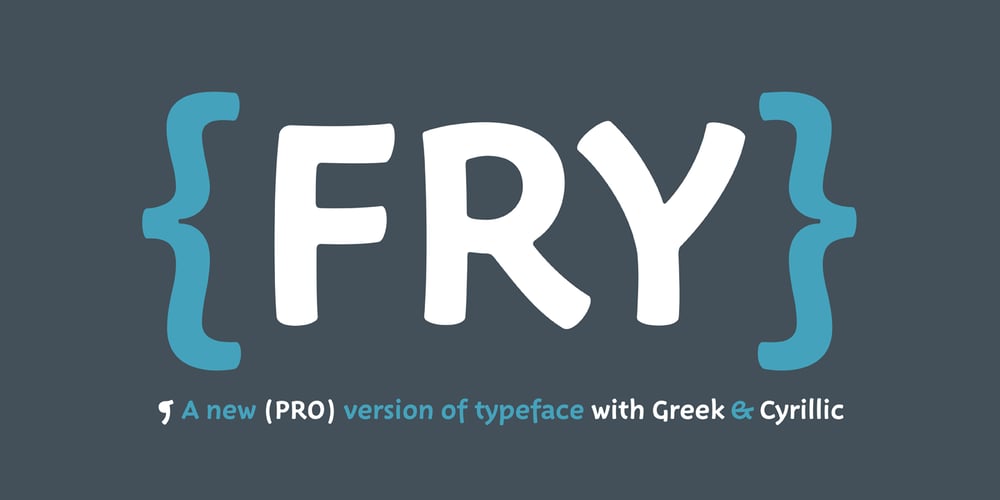
Fry Pro Font Family was designed by Oleg Macujev and published by omtype. Fry Pro contains 1 styles and family package options. The typeface Fry was developed in 2008 specially for the Sky-Fish company (fish and seafood dealer). This type is designed for small texts and has a friendly and a fairytale historic flavor. Fry takes the openness and dynamism of humanistic sans serif, the simple and softness of lubok’s letters (primitive style) and the fluidity of shallow marine fry. Despite its funny style, Fry works well even in the 5 point size. In large sizes Fry demonstrates its originality, vivacity and softness, in the small characteristics become less visible, and Fry’s readability becomes more important. This makes the typeface suitable for many tasks of typography. The typeface includes extended set of Latin, Cyrillic and Greek, old style and lining figures, historical alternates and special local features. The combination of lubok’s aesthetics and funny dynamic forms make a nature of Fry. Fry was exhibited on Svjato Cyrillic (Kharkov, Ukraine) festival in 2008. It was awarded for excellence in type and graphic design at Modern Cyrillic 2009 competition. Also it received the second prize in display category at Granshan 2011. Fry was selected among 50 typefaces for the Call for type exhibition in the Gutenberg museum (2013).